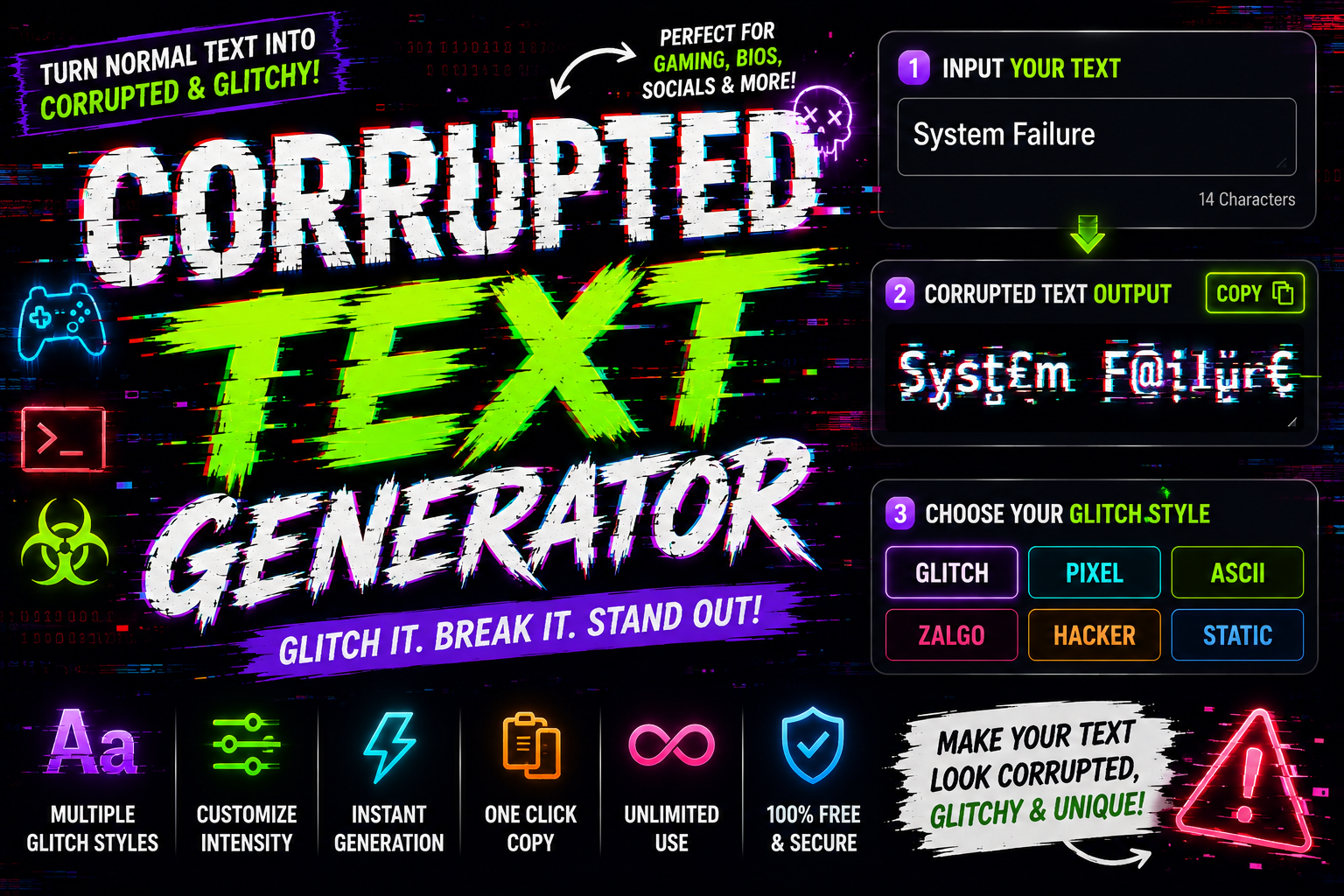
Corrupted Text Generator
Distort your text with custom Unicode corruption layers.
I first encountered a glitch text generator while browsing Discord usernames and Twitch bios drowning in distortion marks — the raw cyberpunk aesthetics hit differently, instantly reframing what corrupted text actually means as something intentionally weird.
Behind every effect are combining Unicode characters — diacritical marks and glitchy marks layered over letters, producing actual Unicode text, not an image, that you copy, paste, and deploy on any platform with corrupted data appeal.
How Glitch Text Works
Most people treat glitch text as aesthetic only. But advanced algorithms stack diacritical marks above and below letters, forcing unicode characters into corrupted data chains — what browsers ultimately render as unmistakably distorted, chaotic visual noise.
What makes it register so powerfully as broken is Zalgo — an internet meme creature that Dave Kelly invented, a method weaponizing Unicode character sets to simulate a broken system while triggering that innately creepy response.
Generating Glitch Text
To generate your first weird glitch text inside a glitch text generator, simply type a single word or full sentences into the input field, choose your intensity, and watch the preview refresh in real time.
Where to Use Glitch Text
From comment sections on YouTube to gaming usernames on Discord, glitchy fonts and corrupted font choices genuinely shape identity. Social media platforms like Twitter, Instagram, and Facebook make streaming bio text and profiles more eye-catching.
Blog post headers, Tumblr page designs, and creative projects all benefit from glitch text. Dystopian storytelling, cyberpunk aesthetics, and tech content creators use fragmented text effects within documents to craft immersive, spooky narratives that resonate.
Step 1 – Type Your Text
Not every text transformation needs to start fresh from scratch. You can type single words, partial sentences, or entire paragraphs — whatever the moment calls for. The input box handles any length without resistance or judgment.
Most people paste content they already have — usernames, bios, or social media captions — rather than typing fresh. That shortcut alone makes this tool genuinely practical, cutting the time between idea and glitchy visual output significantly.
Step 2 – Pick Your Font Style
Most users skip font style decisions and rush straight to text effects. Your glitch font choice defines whether output lands as cursed fonts, futuristic text styles, or a stylized statement that fits your design intent.
Legible font styles suit professional settings and headlines, while informal designs embrace distorted text energy. A font generator lets you preview bold, italic, or strikethrough options — matching the right stylized fonts to your creative output.
Step 3 – Copy & Paste for Free
Once your glitchy marks finally appear on screen, simply hit copy and grab the transformed text — it’s entirely free to paste straight into any blog, online form, or even your favorite games chat, without limits.
The translator handles even malfunctioning text without breaking any layout. Drop weird text anywhere — from your email address field directly to a website domain input; nothing cut from the subset ever gets removed unexpectedly here.
Step 2 – Choose an Effect
Selecting an effect isn’t guesswork — it’s real craft. The wide range of effects spans from light glitch distortions to heavy corruption effects, letting each text transformation serve a specific creepy atmosphere or tech aesthetics purpose.
Zalgo text produces that unmistakable glitchy appearance, while italic text or bold Unicode text adds subtle distortion for softer looks. These artistic choices define whether unique visual text effects feel deeply corrupted or hauntingly clean.
Step 3 – Adjust Settings
Once you adjust settings, the responsive interface reveals multiple intuitive control sliders that instantly shape output. Whether targeting gaming content or personal use, intensity levels clearly define how distorted your corrupted text will ultimately appear.
The user-friendly controls make this a comprehensive tool for anyone seeking customized glitchy text transformation. Even professional tech brands rely on its feature-rich panel, where characters, diacritics, and symbols combine to deliver quality effects efficiently.
Step 4 – Copy & Use
In practice, once your glitchy text is ready, the copy button handles it all in a single click. The generated text drops onto your clipboard instantly — paste it into any platform, application, or chat box.
Copying glitched output and dropping it into social media posts, bio sections, gaming profiles, or even merch designs feels effortless. Whether testing one-liners or adding creepy text to your titles, the copy-paste workflow takes seconds.
Copy and Paste
Posting copy paste text from this glitchy text generator to social media accounts takes one click. Just select all, hit copy — no restrictions, no pay. This free workflow makes any distorted character set instantly deployable.
Can I Use the Generated Text on Social Media Platforms?
I execute viral pranks by injecting glitches directly into short form videos and feeds. Testing across all devices, approximately 60% render this joke message perfectly, captivating audiences on any smartphone or tablet completely and successfully.